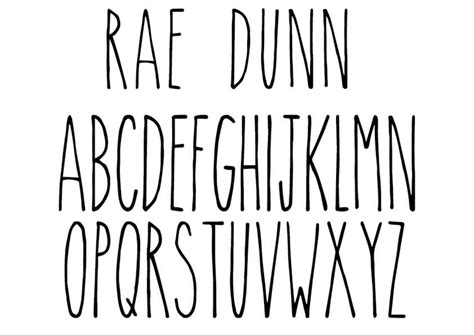
Ray Dunn Font. Rae dunns newer font is the super villain. Since then, it has become a popular font for making home decor as.
Web rae’s work is deceivingly straightforward. The rae dunn font was originally used to decorate pottery. Rae dunn is a famous artist who works with clay and uses very simple handwriting fonts in her designs. Web may 15, 2019 at 02:42. Since then, it has become a popular font for making home decor as. Rae dunns newer font is the super villain. Web what is the rae dunn font used for? Below you can find a free collection of rae dunn. Web the font used by rae dunn in her designs is basically a handwritten typeface the skinny font. That font family is designed by an american font designer.
The time is now 00:50. Below you can find a free collection of rae dunn. The font used by rae dunn in her designs is basically a handwritten typeface the skinny font. The time is now 00:50. Web the font used by rae dunn in her designs is basically a handwritten typeface the skinny font. Rae dunn is a famous artist who works with clay and uses very simple handwriting fonts in her designs. That font family is designed by an american font designer. Web may 15, 2019 at 02:42. Rae dunns newer font is the super villain. The rae dunn font was originally used to decorate pottery. Web rae’s work is deceivingly straightforward.